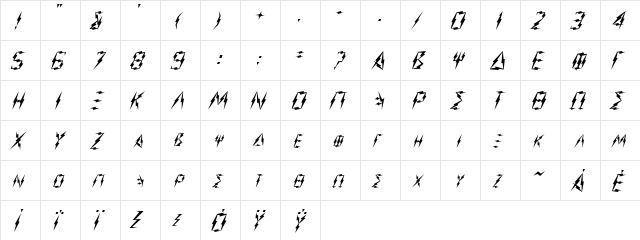
Zeus Regular
Design Context for Zeus Typeface
Zeus is a composed and adaptable typeface that performs quietly and consistently across a wide range of design contexts.